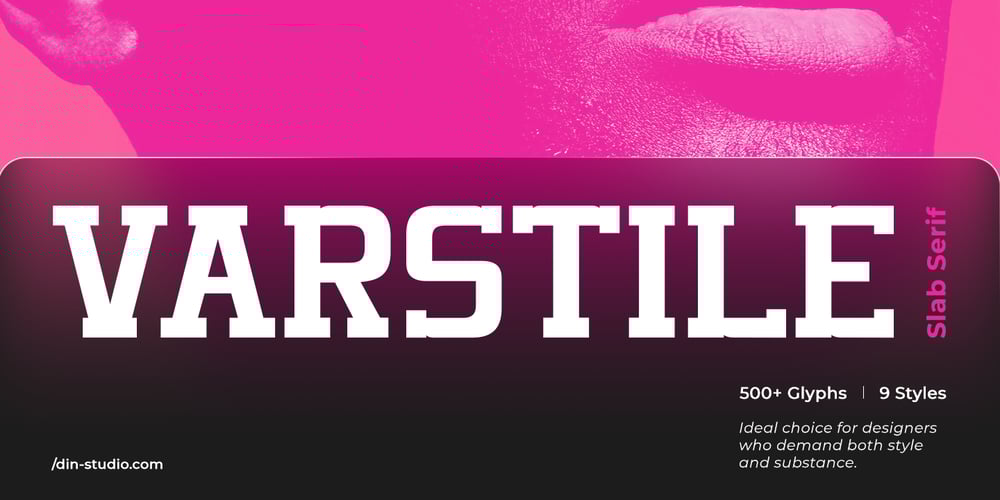
Varstile
Varstile font
Varstile Font Family was designed by Donis Miftahudin and published by Din Studio. Varstile contains 9 styles and family package options. Introducing Varstile, a masterfully designed slab serif font family that effortlessly blends elegance and strength. With 9 distinct weights, Varstile offers unparalleled versatility, making it ideal for your design that requires a touch of sophistication and boldness. Its meticulously crafted characters radiate timeless charm. Varstile’s balanced proportions and commanding presence deliver unmatched visual appeal. Varstile’s different weight fonts : Thin Extra Light Light Regular Medium Semi Bold Bold Extra Bold Black Features: Multilingual Supports PUA Encoded Numerals and Punctuations Varstile fits in headlines, logos, posters, invitation, branding materials, packaging, print media, editorial layouts, and many more designs. Find out more ways to use this font by taking a look at the font preview.Thanks for purchasing our fonts. Hopefully, you have a great time using our font. Feel free to contact us anytime for further information or when you have trouble with the font. Thanks a lot and happy designing.